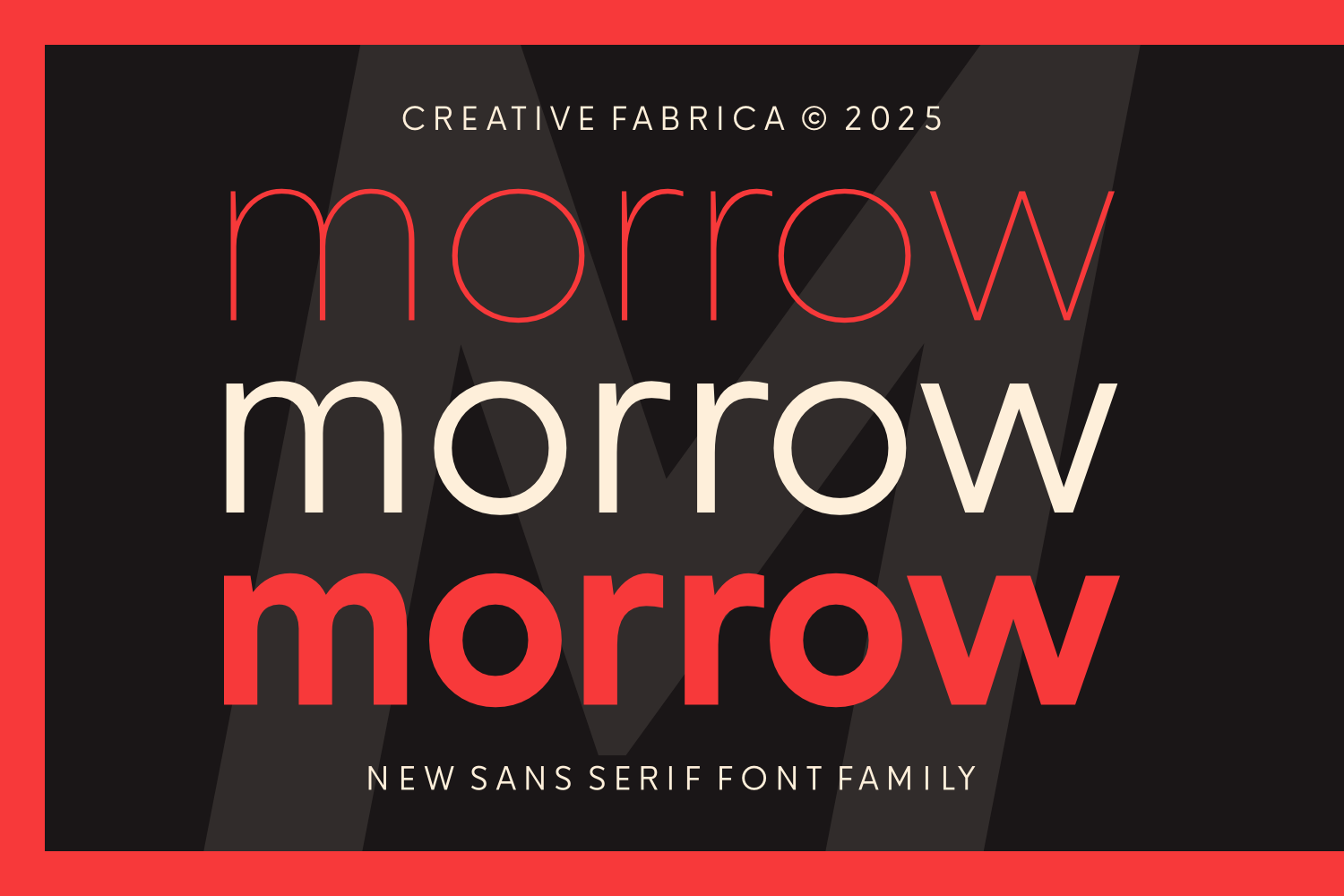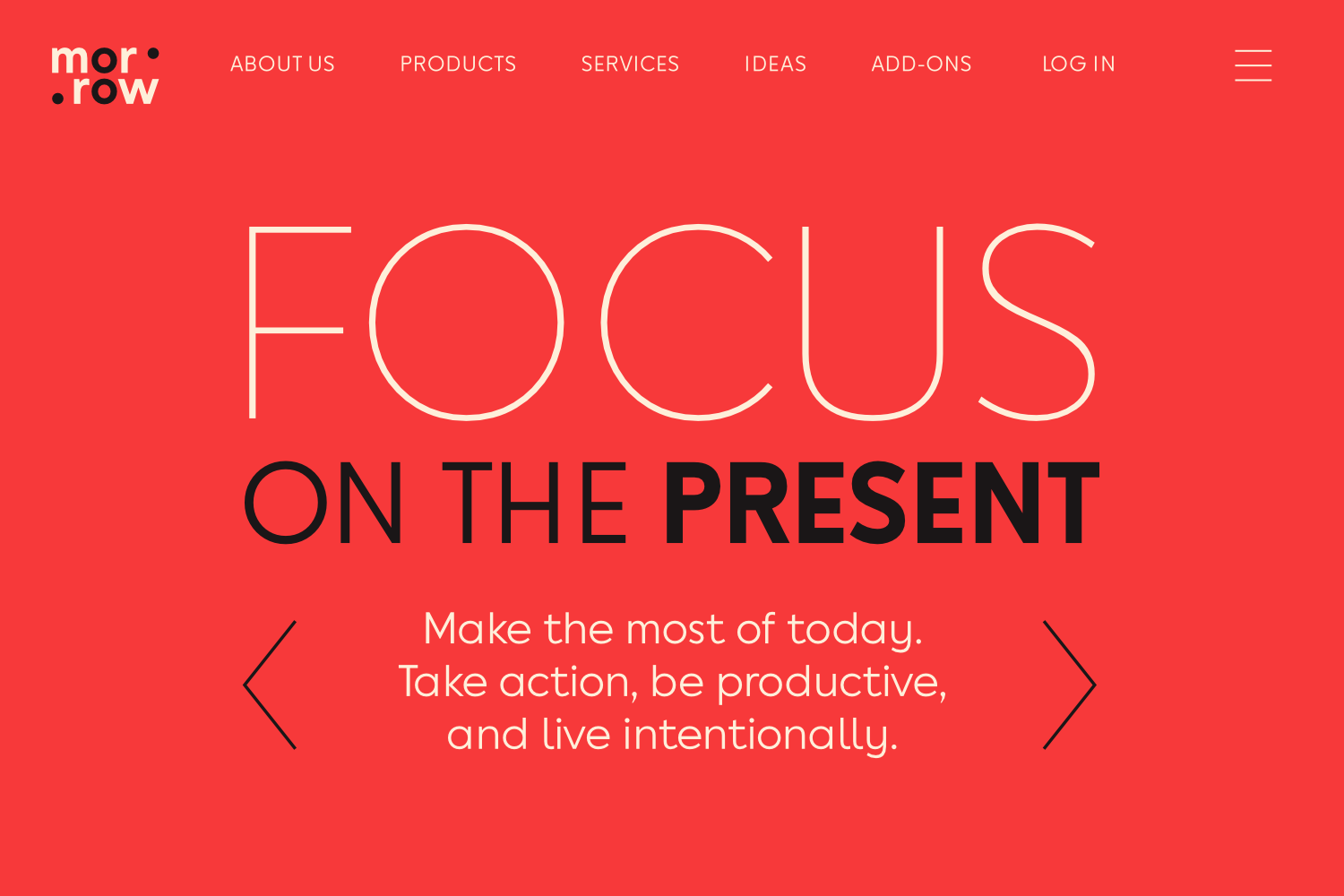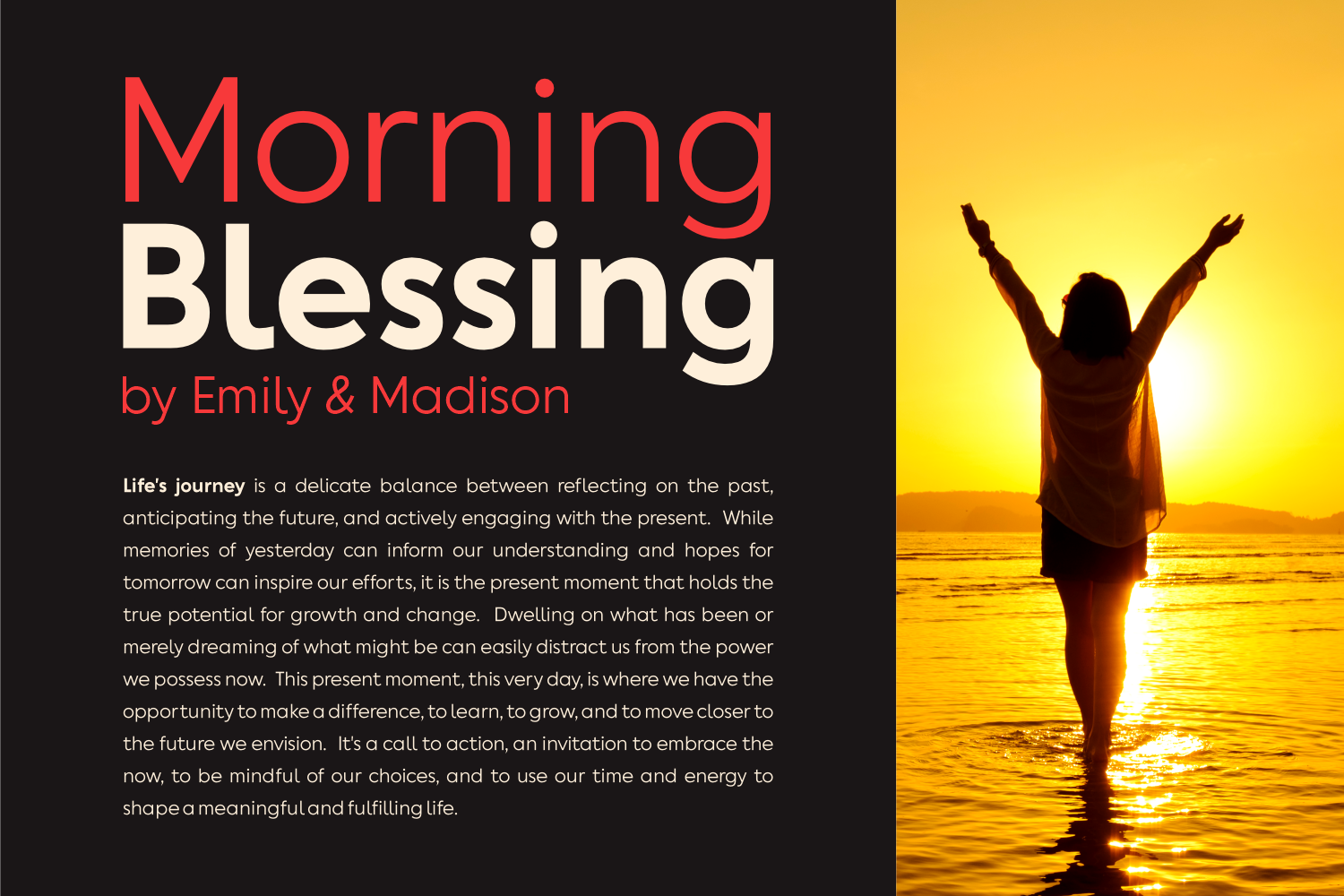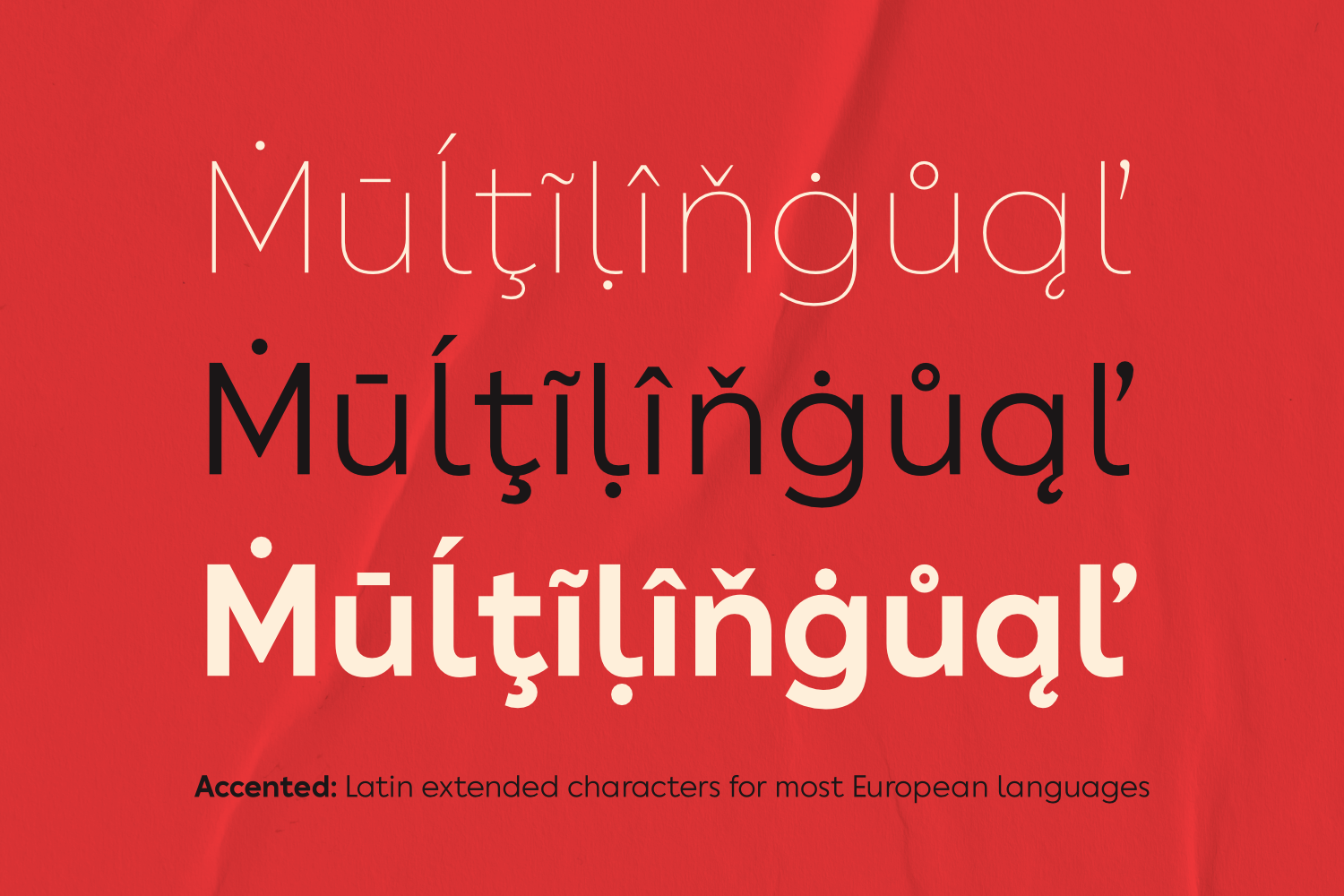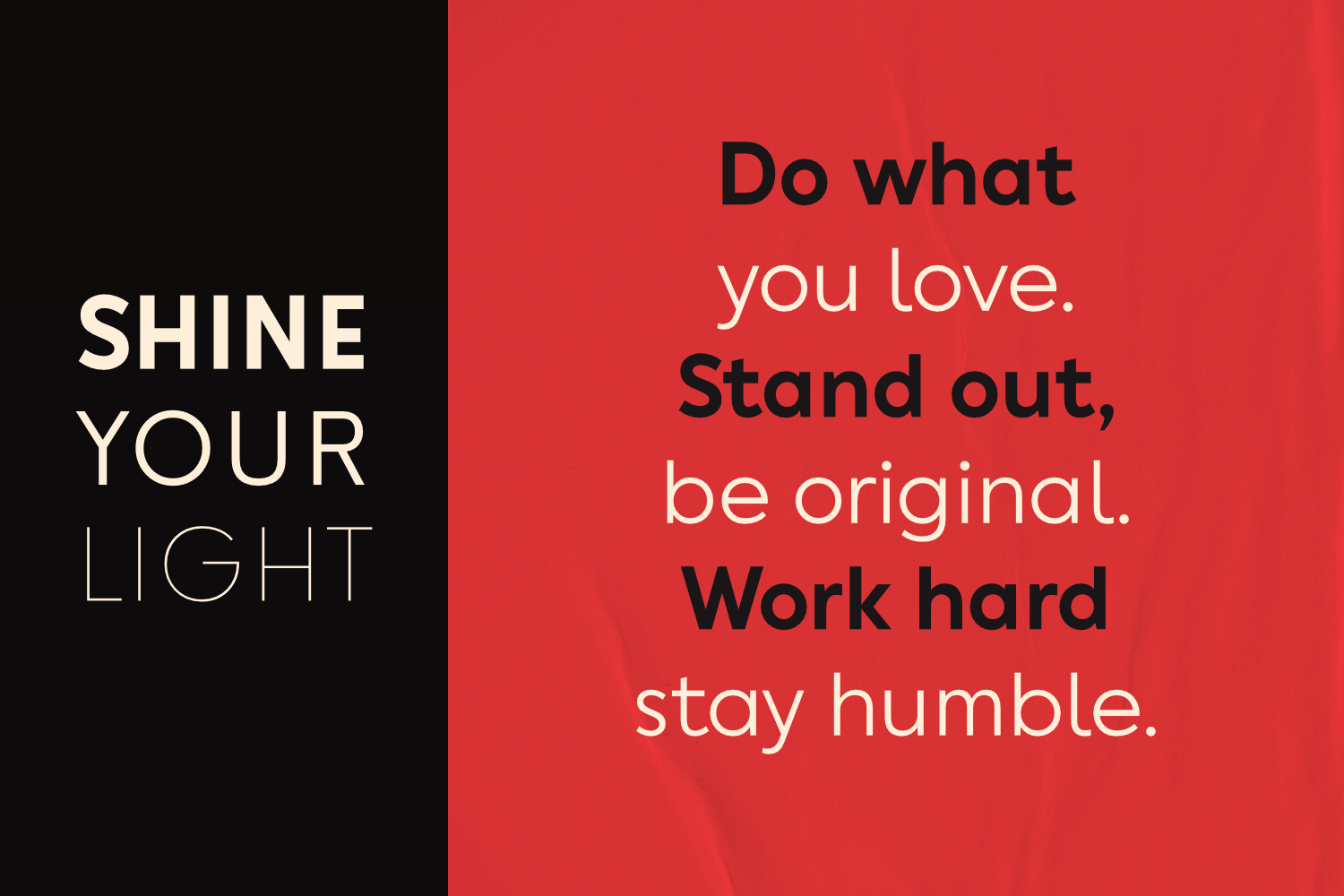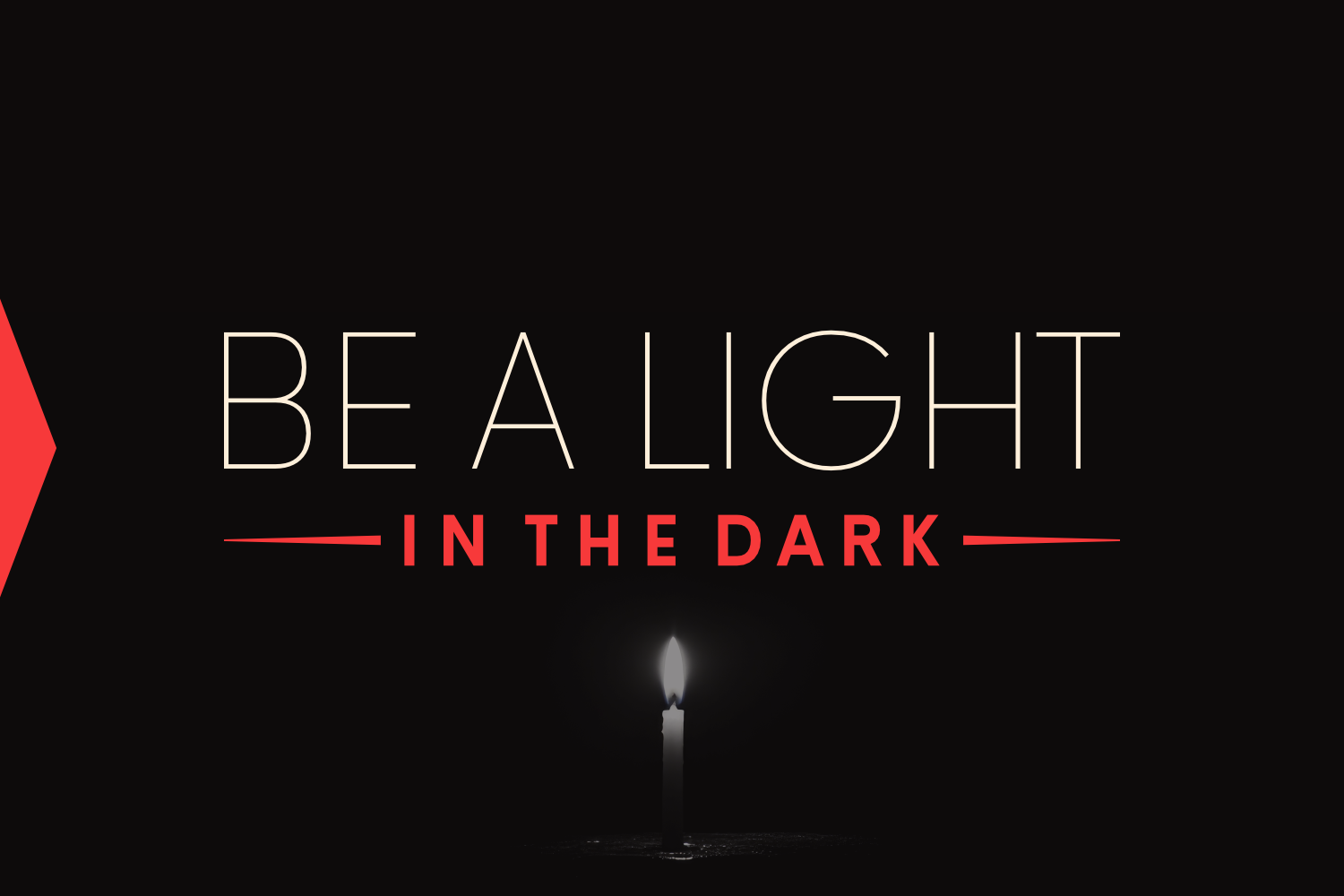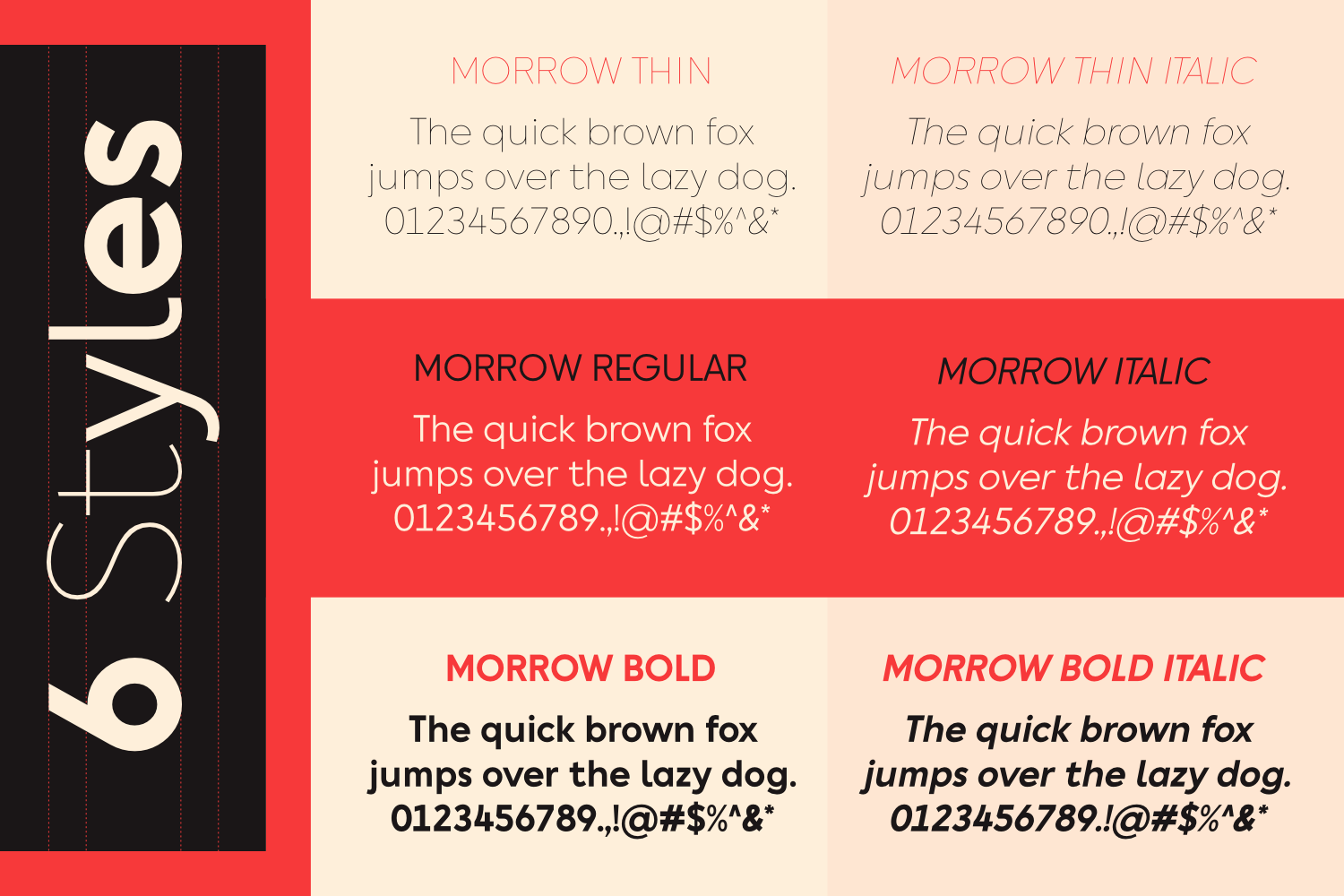
Morrow is a sleek and modern sans-serif font family inspired by the popular Gilroy font, offering a perfect balance of elegance and functionality. With six distinct styles—from thin and refined to bold and impactful—Morrow adapts seamlessly to a variety of design needs. Its clean, geometric structure makes it an excellent choice for branding, web design, editorial layouts, advertising, and product packaging.